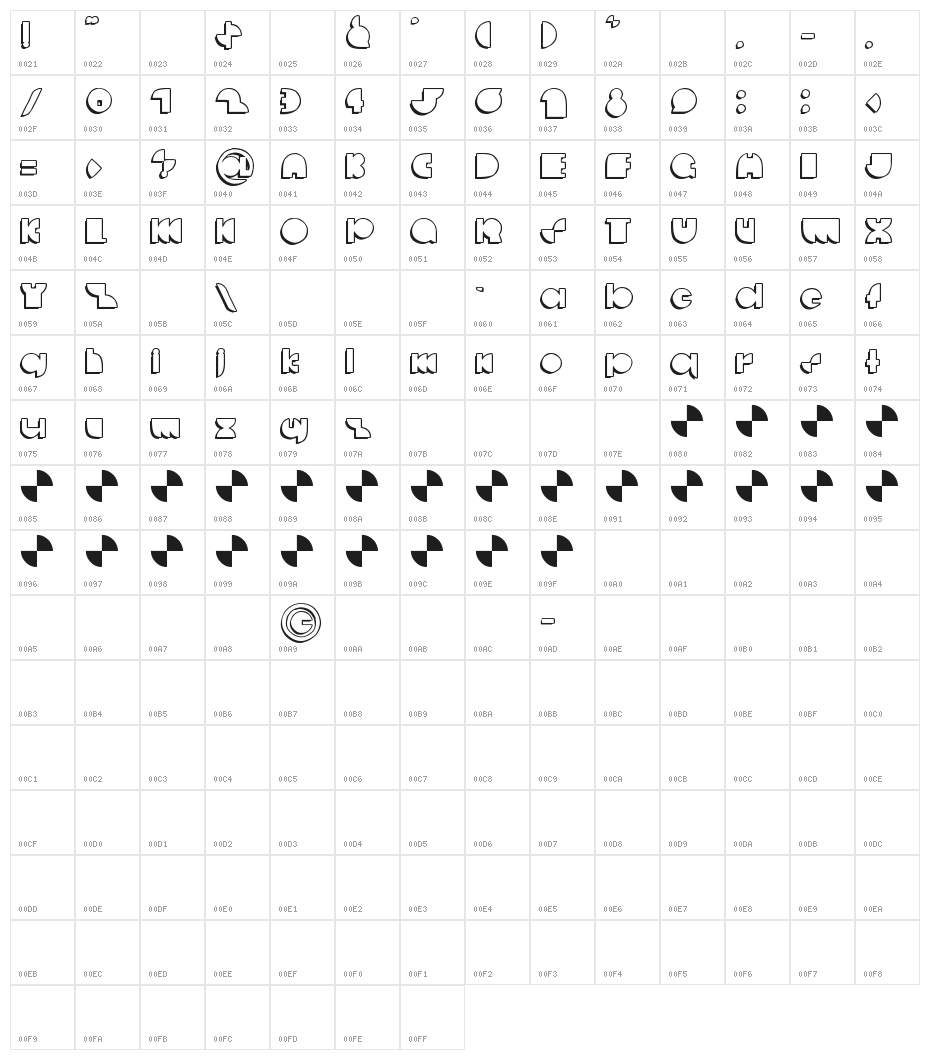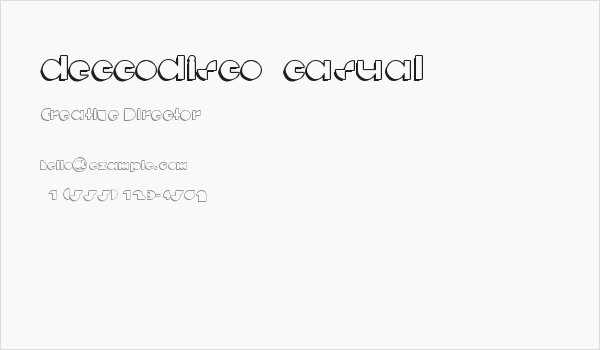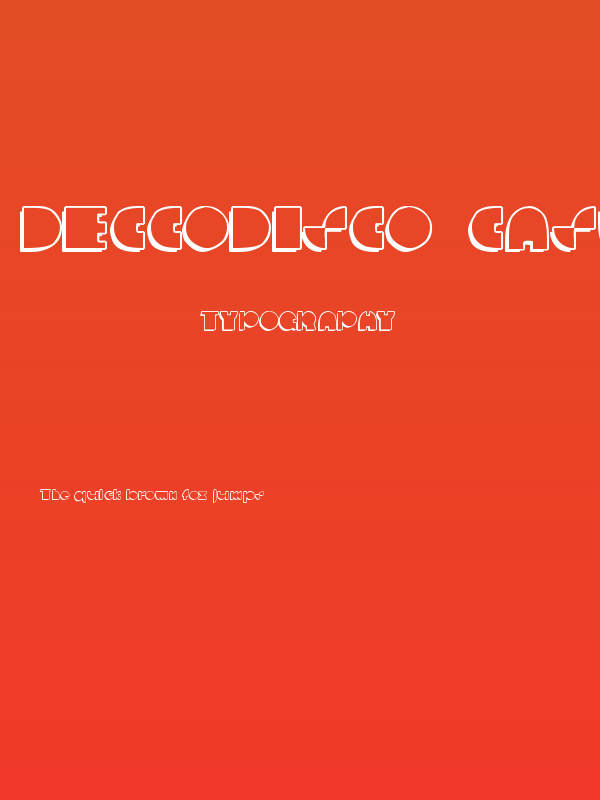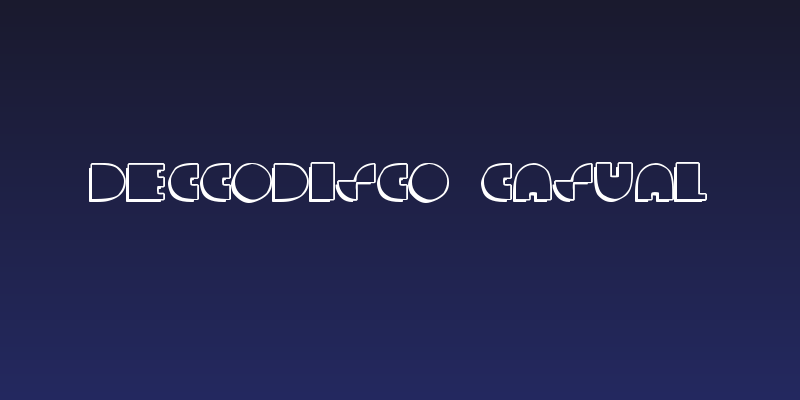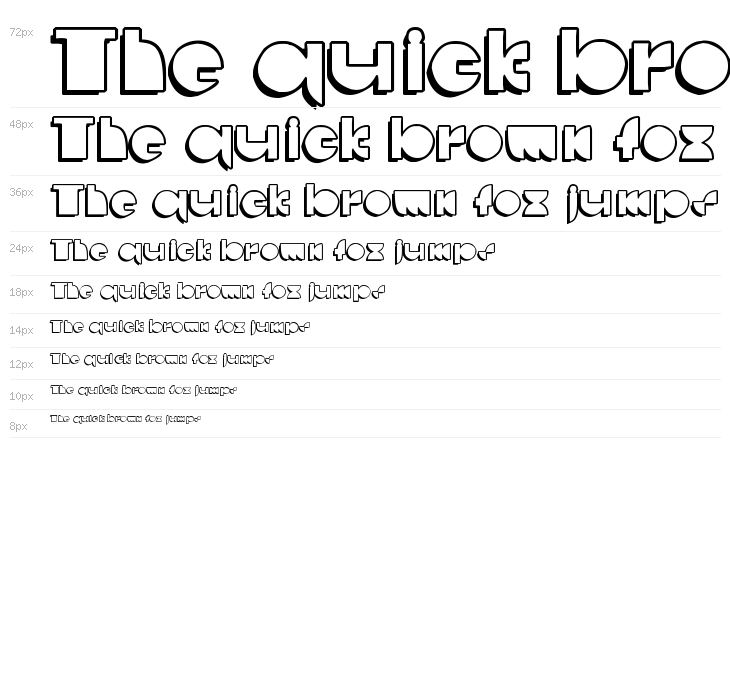
deccodisco_casual Font
deccodisco_casual Description
This font features a bold, geometric design with a playful and modern aesthetic. The characters are constructed with thick, uniform strokes and exhibit a unique blend of rounded and angular elements. The uppercase and lowercase letters maintain a consistent style, with some letters incorporating unexpected cuts and curves that add a dynamic flair. The numbers and special characters follow the same design principles, ensuring a cohesive look across all glyphs. This font's distinct style makes it stand out, capturing attention with its bold presence and creative forms.
| Proposed Projects | Ideal for use in modern branding, poster designs, album covers, and any project seeking a bold, eye-catching typeface. |